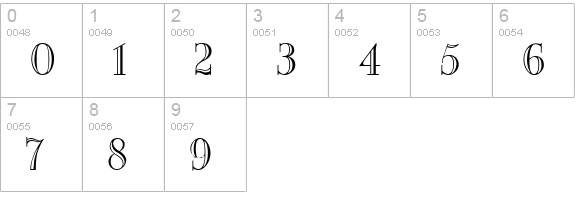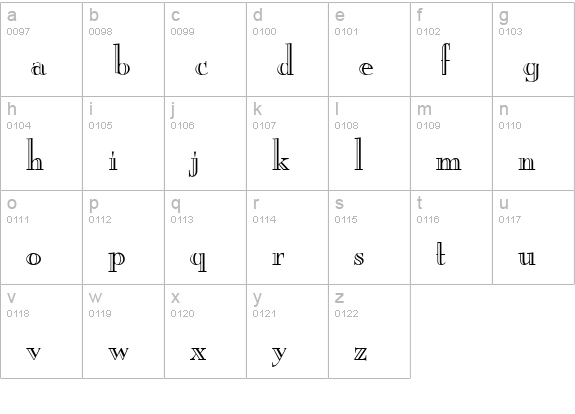
YankeeEngraved Normal is the standard, neutral variant in the YankeeEngraved typeface family \xE2\x80\x94 well suited to general body text, paragraphs, and standard typographic work.
YankeeEngraved Normal font exudes a timeless elegance with its classic engraved style. This versatile font is perfect for adding a touch of sophistication to any project, whether it's a wedding invitation, a logo design, or a vintage-inspired poster. The intricate details and clean lines of YankeeEngraved Normal font make it a standout choice for those seeking a refined and polished look. The best part? YankeeEngraved Normal font is available for free download at FontsMarket.com. You can easily incorporate this stunning font into your designs without any cost, making it a valuable addition to your font collection. Don't miss out on the opportunity to elevate your projects with the beauty and grace of YankeeEngraved Normal font - download it for free today!